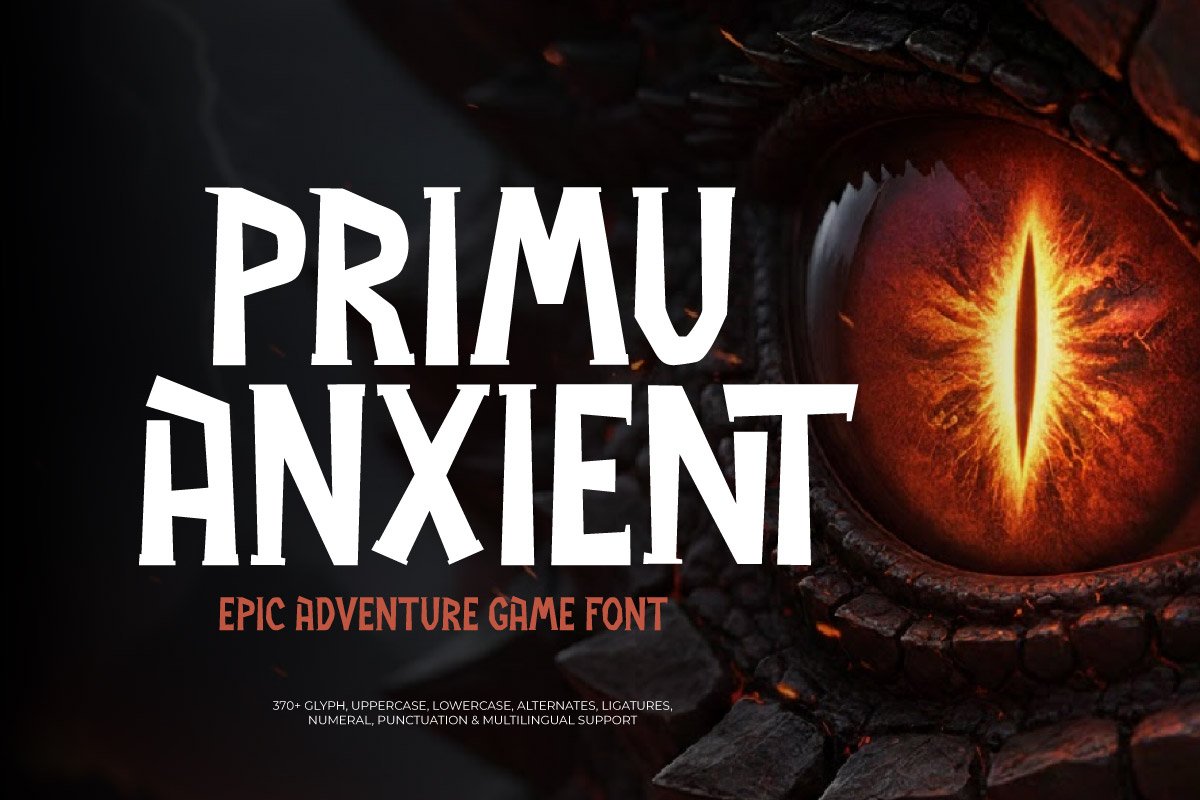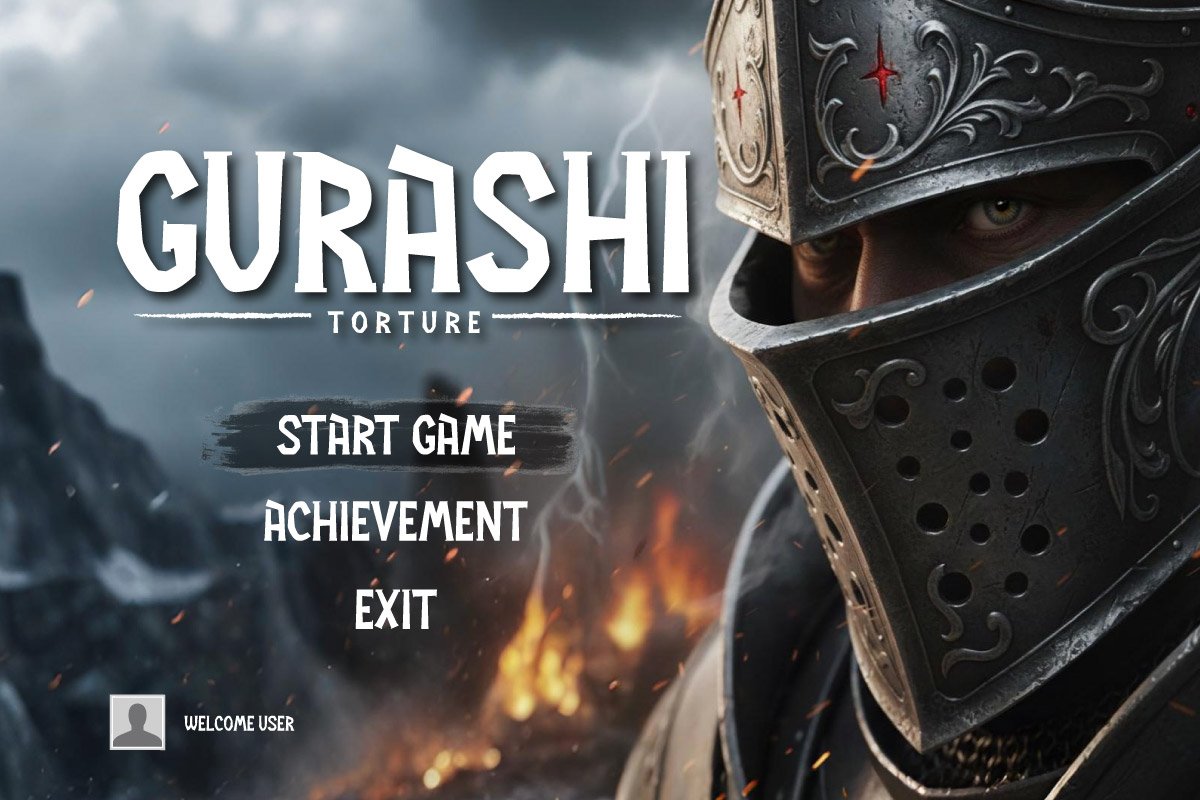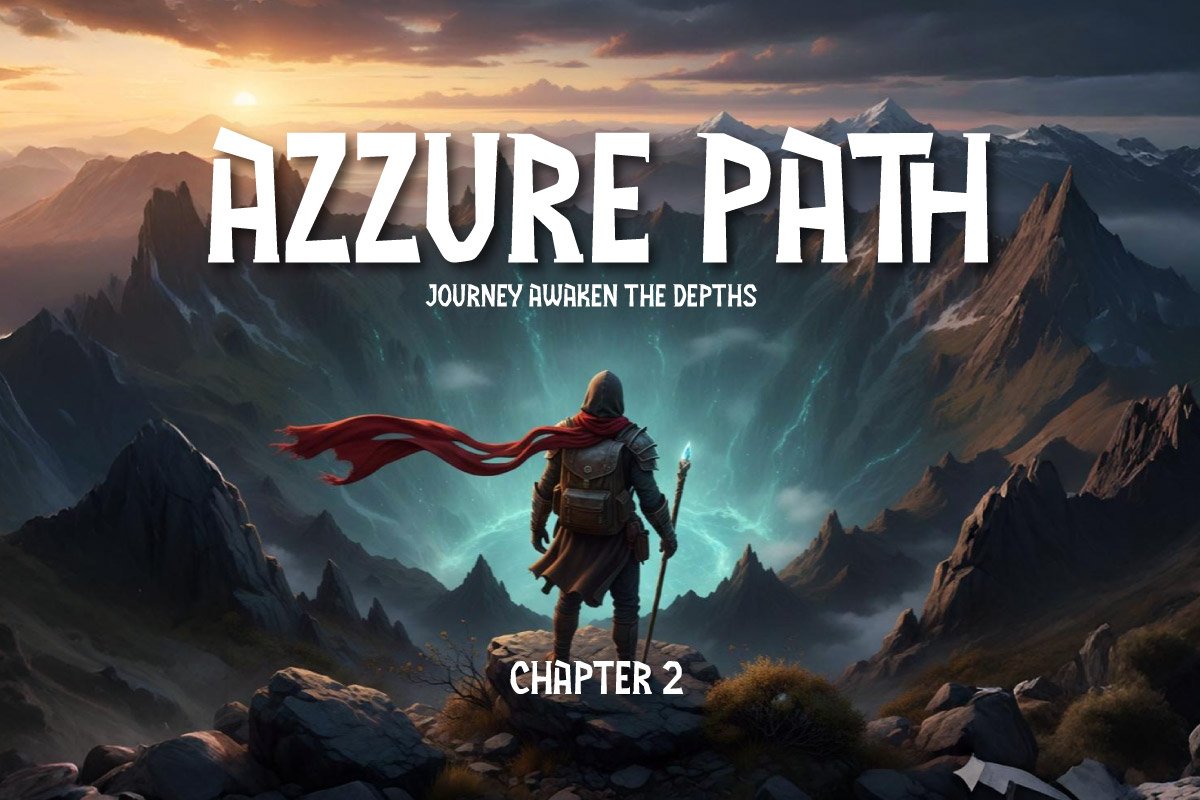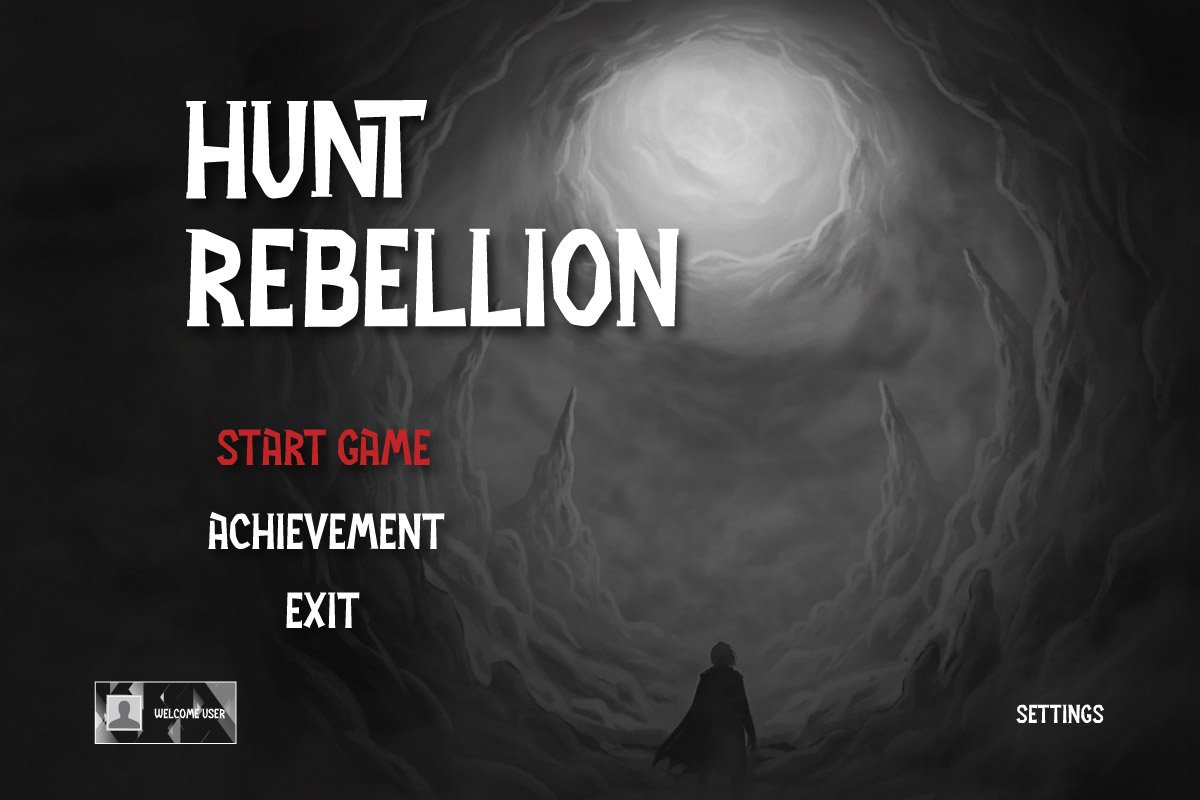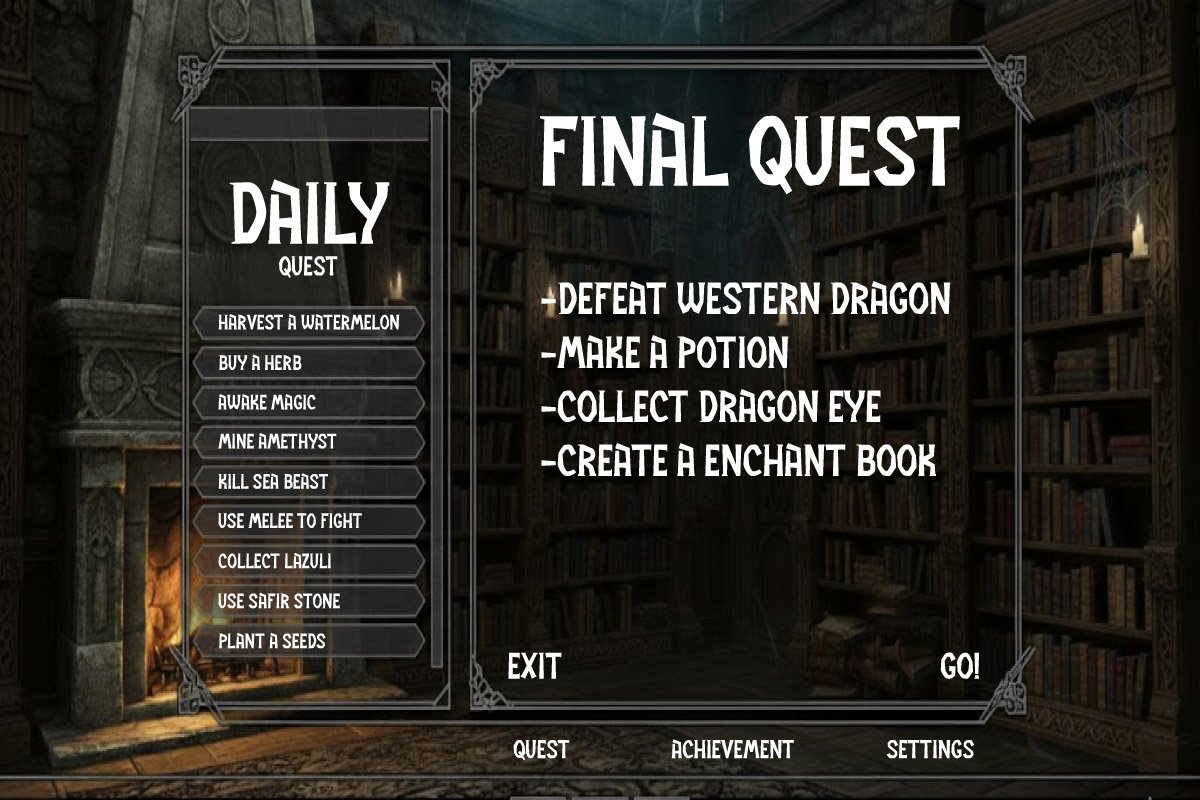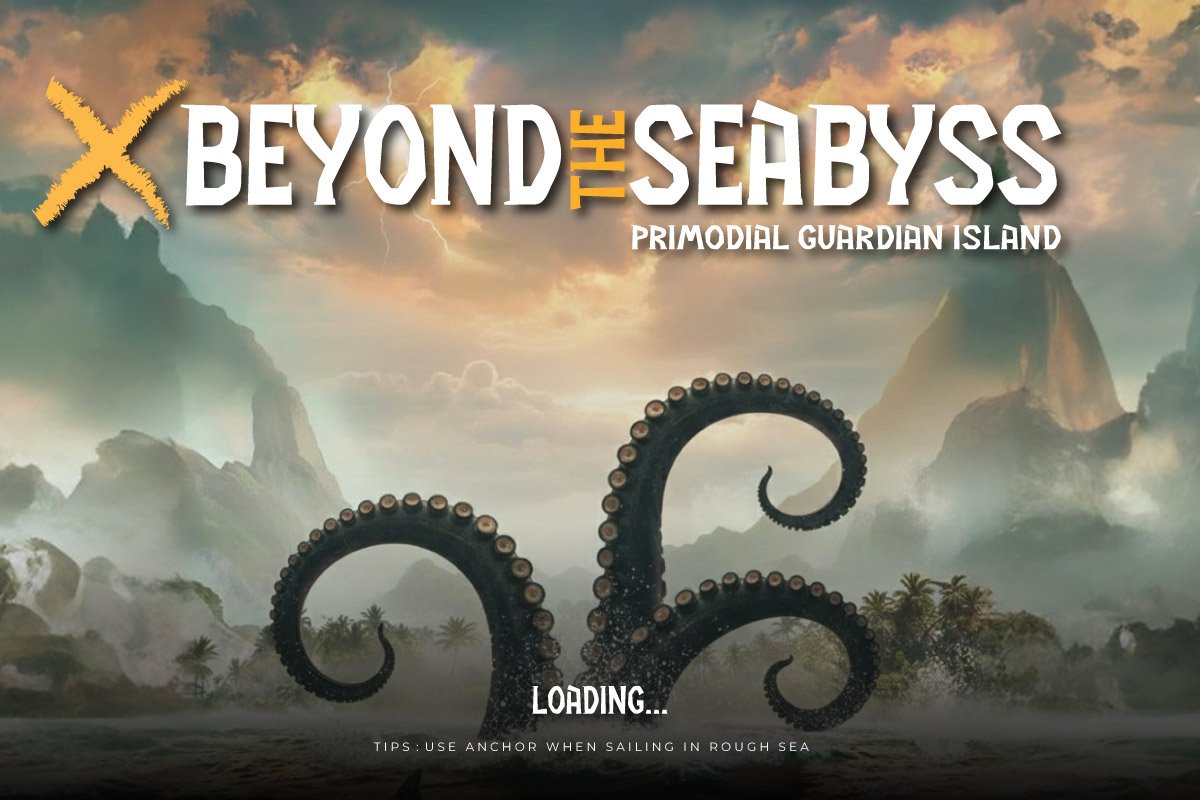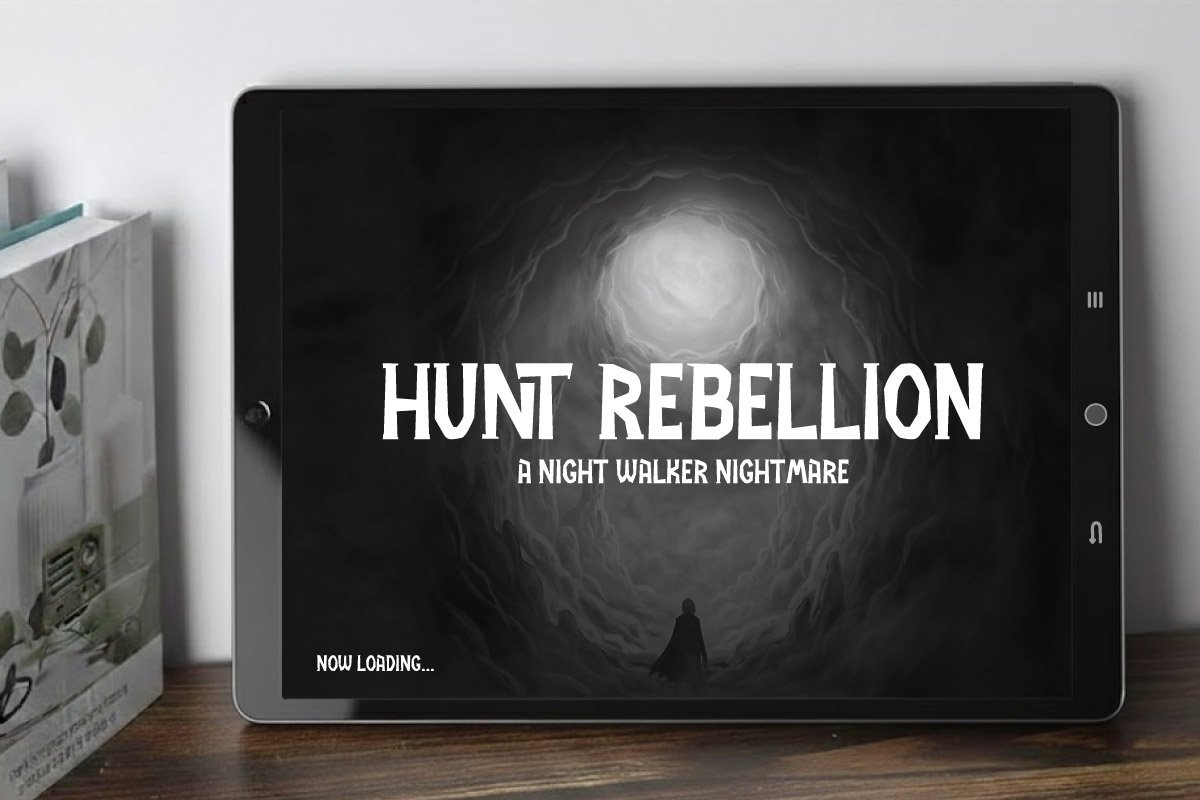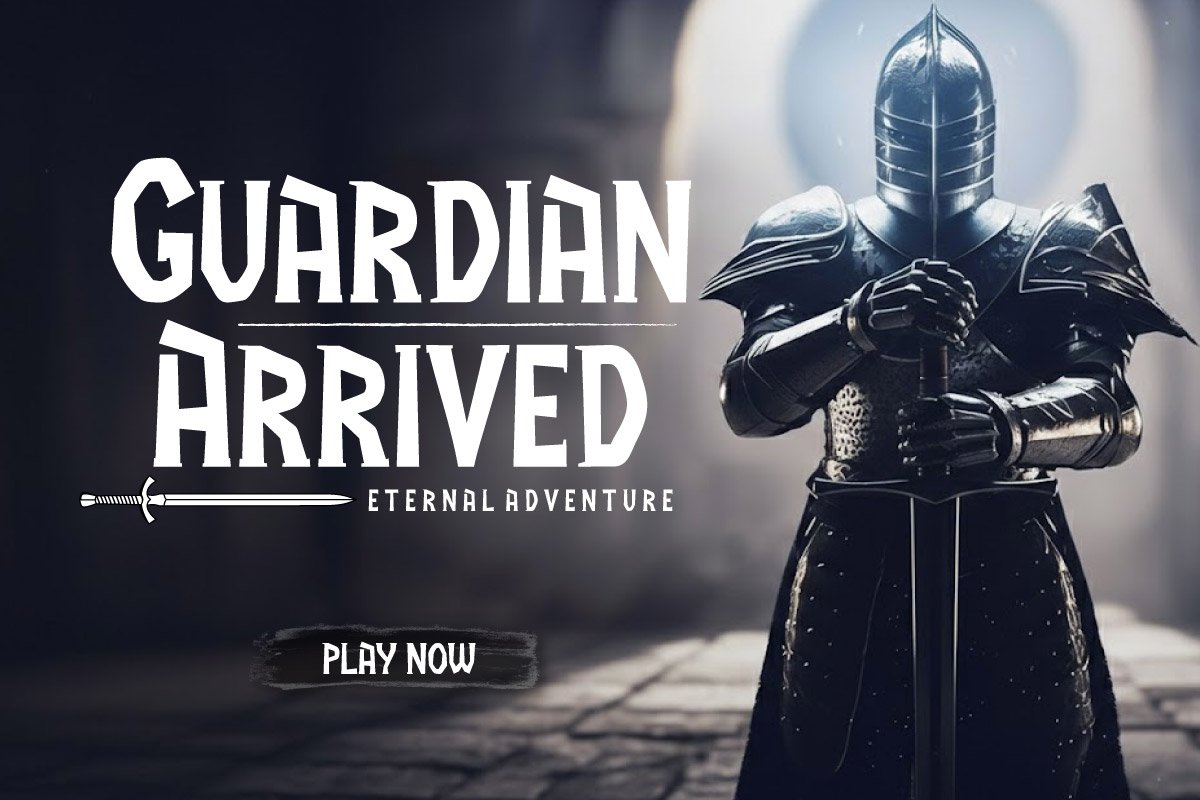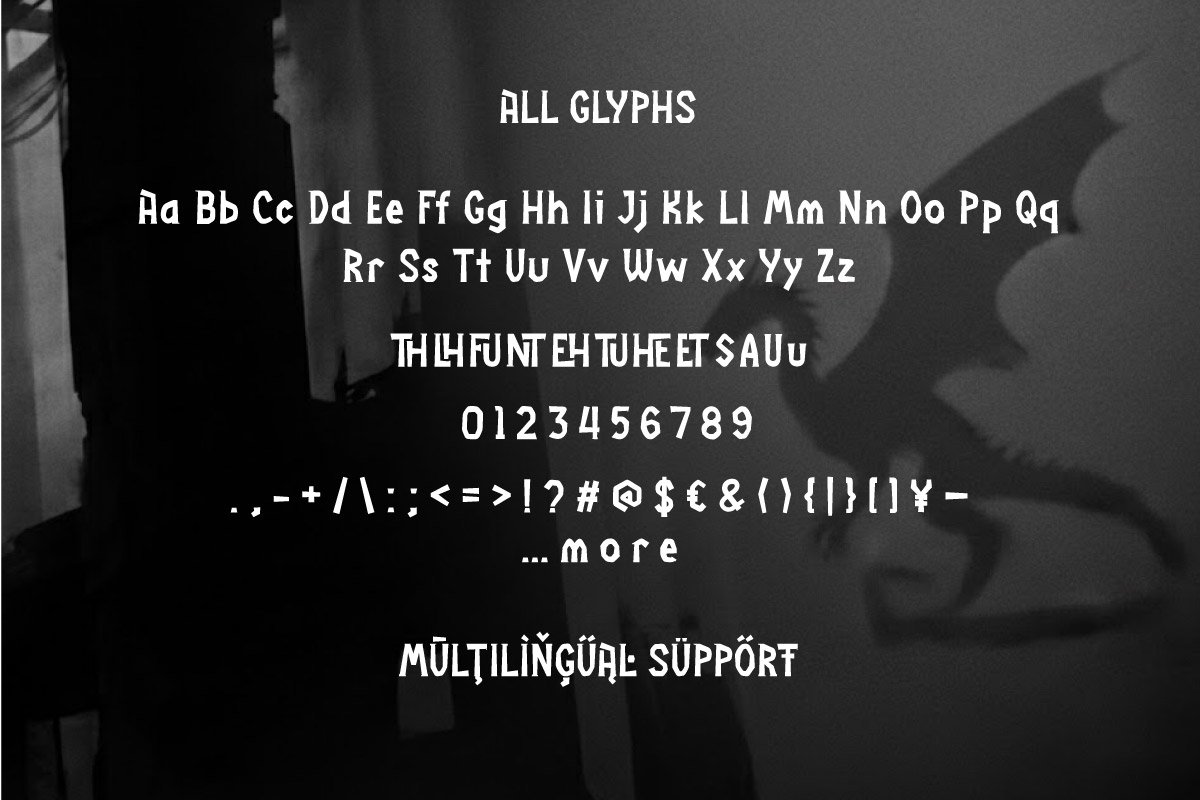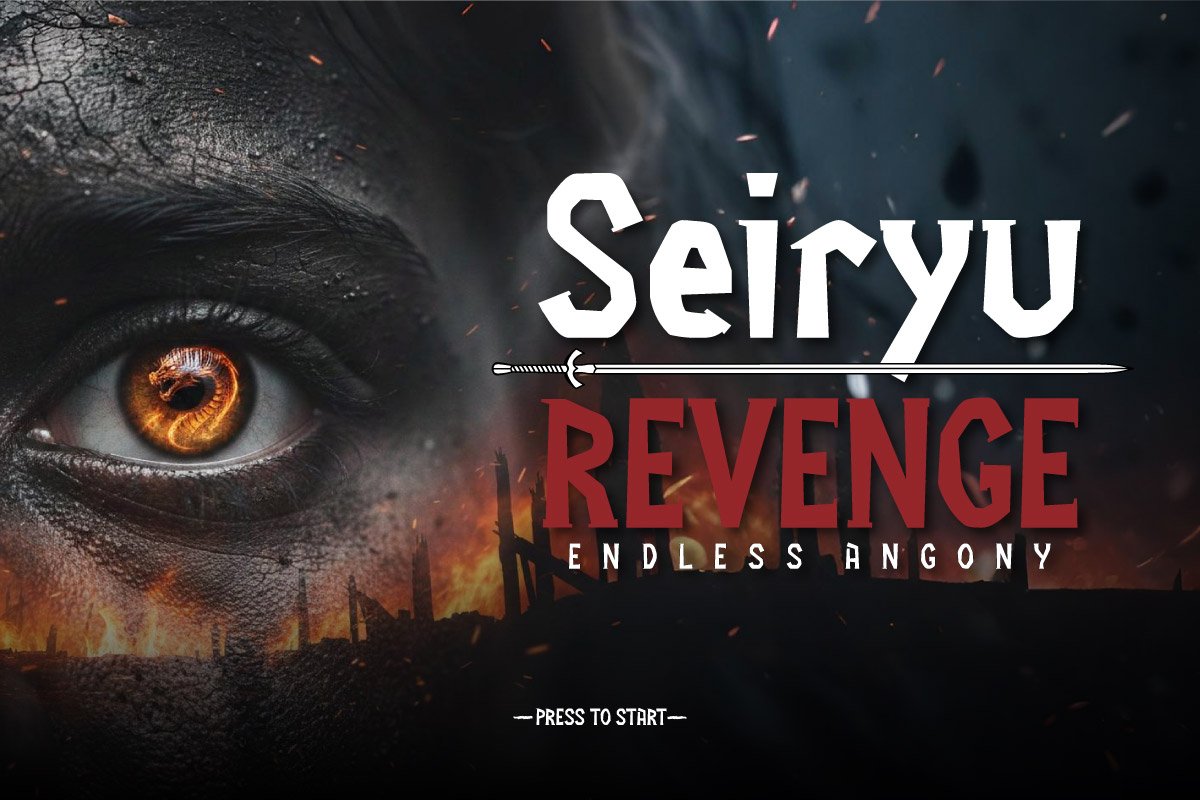
Primu Anxient – Epic Adventure Game Font
Primu Anxient is an epic adventure display font inspired by ancient fantasy worlds, legendary monsters, and heroic tales. Its bold and dramatic letterforms are crafted to create powerful titles that instantly stand out in games, posters, and fantasy visuals.
This font is ideal for adventure games, RPG titles, action fantasy posters, movie covers, and strong headlines that require a heroic and legendary atmosphere. Every character delivers a sense of battle, magic, and epic storytelling.
Featuring uppercase and lowercase letters, numerals, punctuation, ligatures, and multilingual support, Primu Anxient offers flexibility for professional designers who need a strong, cinematic, and immersive font style.